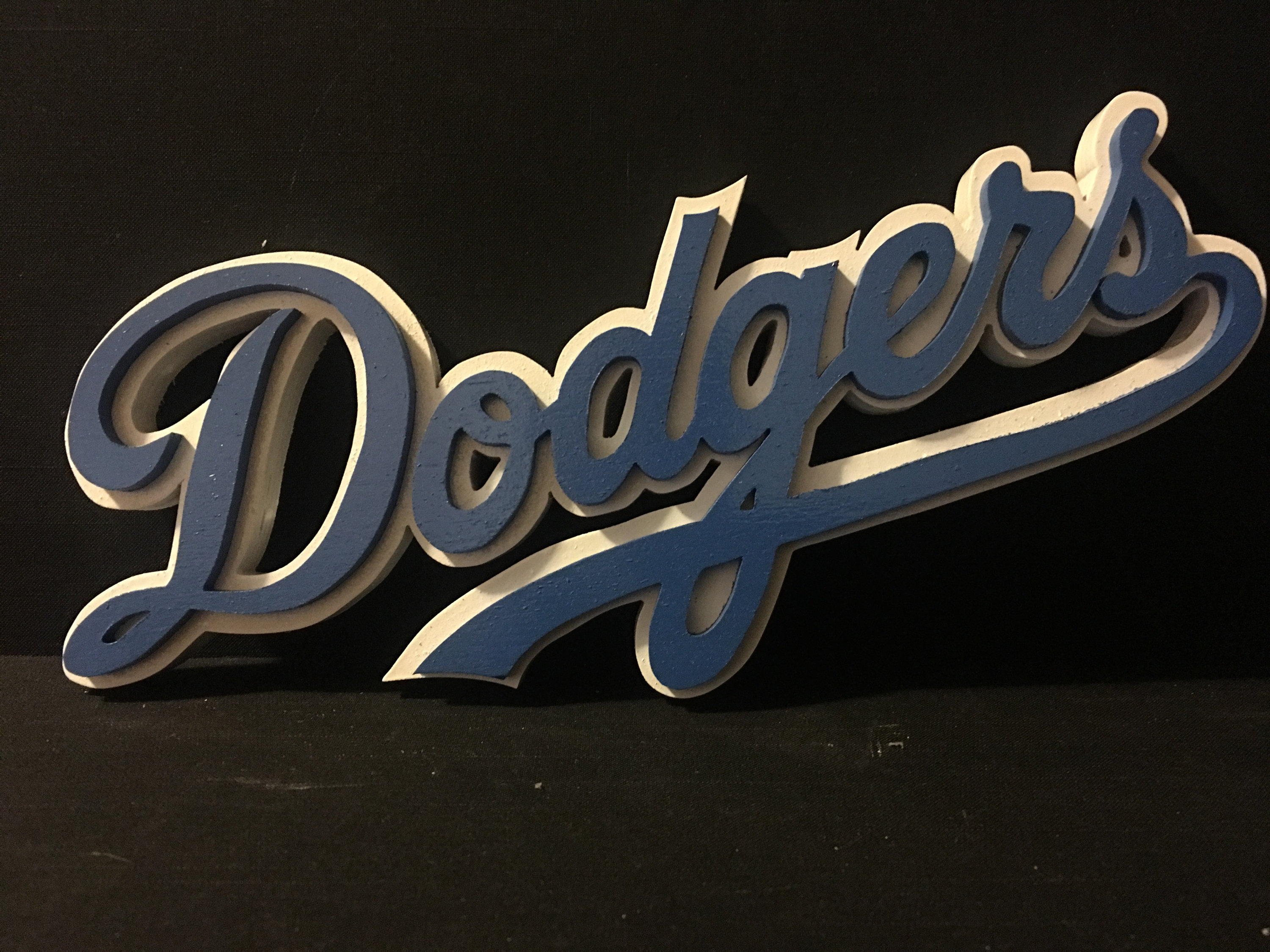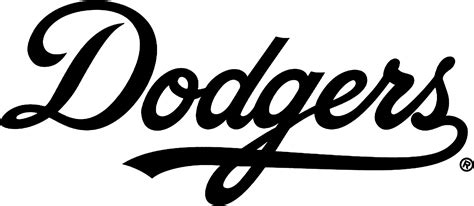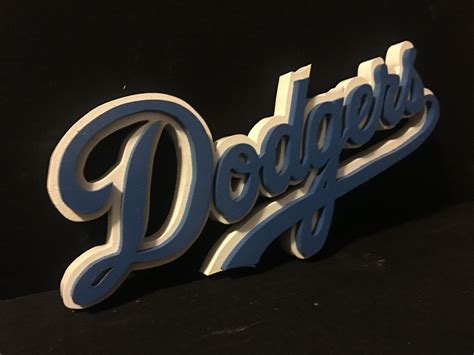
La Dodgers Script Font
La Dodgers Script Font - Web archive of freely downloadable fonts. Web the ‘dodgers’ name is written in script with a deep azure(also called dodger blue) color, the numbers are in red,. Browse by alphabetical listing, by style, by author or by popularity. This is a script typeface designed for the la dodgers.
This is a script typeface designed for the la dodgers. Web archive of freely downloadable fonts. Browse by alphabetical listing, by style, by author or by popularity. Web the ‘dodgers’ name is written in script with a deep azure(also called dodger blue) color, the numbers are in red,.
Web archive of freely downloadable fonts. Browse by alphabetical listing, by style, by author or by popularity. Web the ‘dodgers’ name is written in script with a deep azure(also called dodger blue) color, the numbers are in red,. This is a script typeface designed for the la dodgers.
This is a script typeface designed for the la dodgers. Browse by alphabetical listing, by style, by author or by popularity. Web archive of freely downloadable fonts. Web the ‘dodgers’ name is written in script with a deep azure(also called dodger blue) color, the numbers are in red,.
Web archive of freely downloadable fonts. This is a script typeface designed for the la dodgers. Web the ‘dodgers’ name is written in script with a deep azure(also called dodger blue) color, the numbers are in red,. Browse by alphabetical listing, by style, by author or by popularity.
Web the ‘dodgers’ name is written in script with a deep azure(also called dodger blue) color, the numbers are in red,. Web archive of freely downloadable fonts. Browse by alphabetical listing, by style, by author or by popularity. This is a script typeface designed for the la dodgers.
Browse by alphabetical listing, by style, by author or by popularity. This is a script typeface designed for the la dodgers. Web the ‘dodgers’ name is written in script with a deep azure(also called dodger blue) color, the numbers are in red,. Web archive of freely downloadable fonts.
This is a script typeface designed for the la dodgers. Web archive of freely downloadable fonts. Browse by alphabetical listing, by style, by author or by popularity. Web the ‘dodgers’ name is written in script with a deep azure(also called dodger blue) color, the numbers are in red,.
Web the ‘dodgers’ name is written in script with a deep azure(also called dodger blue) color, the numbers are in red,. Browse by alphabetical listing, by style, by author or by popularity. Web archive of freely downloadable fonts. This is a script typeface designed for the la dodgers.
This is a script typeface designed for the la dodgers. Web the ‘dodgers’ name is written in script with a deep azure(also called dodger blue) color, the numbers are in red,. Browse by alphabetical listing, by style, by author or by popularity. Web archive of freely downloadable fonts.
Browse by alphabetical listing, by style, by author or by popularity. Web the ‘dodgers’ name is written in script with a deep azure(also called dodger blue) color, the numbers are in red,. Web archive of freely downloadable fonts. This is a script typeface designed for the la dodgers.
Web archive of freely downloadable fonts. This is a script typeface designed for the la dodgers. Web the ‘dodgers’ name is written in script with a deep azure(also called dodger blue) color, the numbers are in red,. Browse by alphabetical listing, by style, by author or by popularity.
Web archive of freely downloadable fonts. Web the ‘dodgers’ name is written in script with a deep azure(also called dodger blue) color, the numbers are in red,. Browse by alphabetical listing, by style, by author or by popularity. This is a script typeface designed for the la dodgers.
Web archive of freely downloadable fonts. Web the ‘dodgers’ name is written in script with a deep azure(also called dodger blue) color, the numbers are in red,. This is a script typeface designed for the la dodgers.